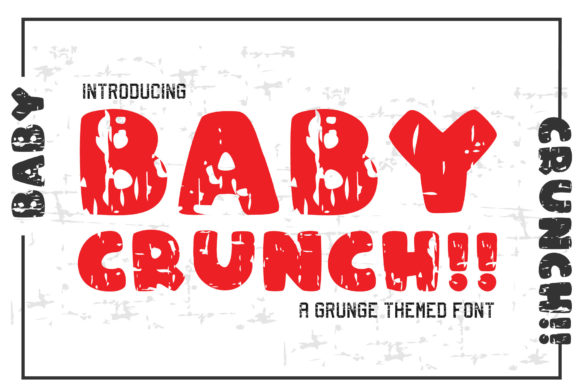
Step into the realm of beautiful typography with Baby Crunch!!, a font that oozes boldness and attitude. This display font is a visual symphony, capturing the essence of handwritten Qs, creating an unforgettable impact on your designs. Unleash your creativity with Baby Crunch!! and watch as your projects come to life with newfound energy and style.
Forge a connection with your audience through the sharp lines and cool aesthetics of Baby Crunch!!. This font speaks volumes, leaving a lasting impression that lingers in the minds of your readers. Whether you're crafting logos, posters, or eye-catching headlines, Baby Crunch!! ensures your message cuts through the noise and commands attention.
With Baby Crunch!!, possibilities are endless. Experiment with its unique letterforms, explore a spectrum of colors, and let your imagination run wild. This font is your passport to a world of boundless creativity, empowering you to create designs that leave an indelible mark. Embrace the spirit of Baby Crunch!! and embark on a typographic adventure like no other.